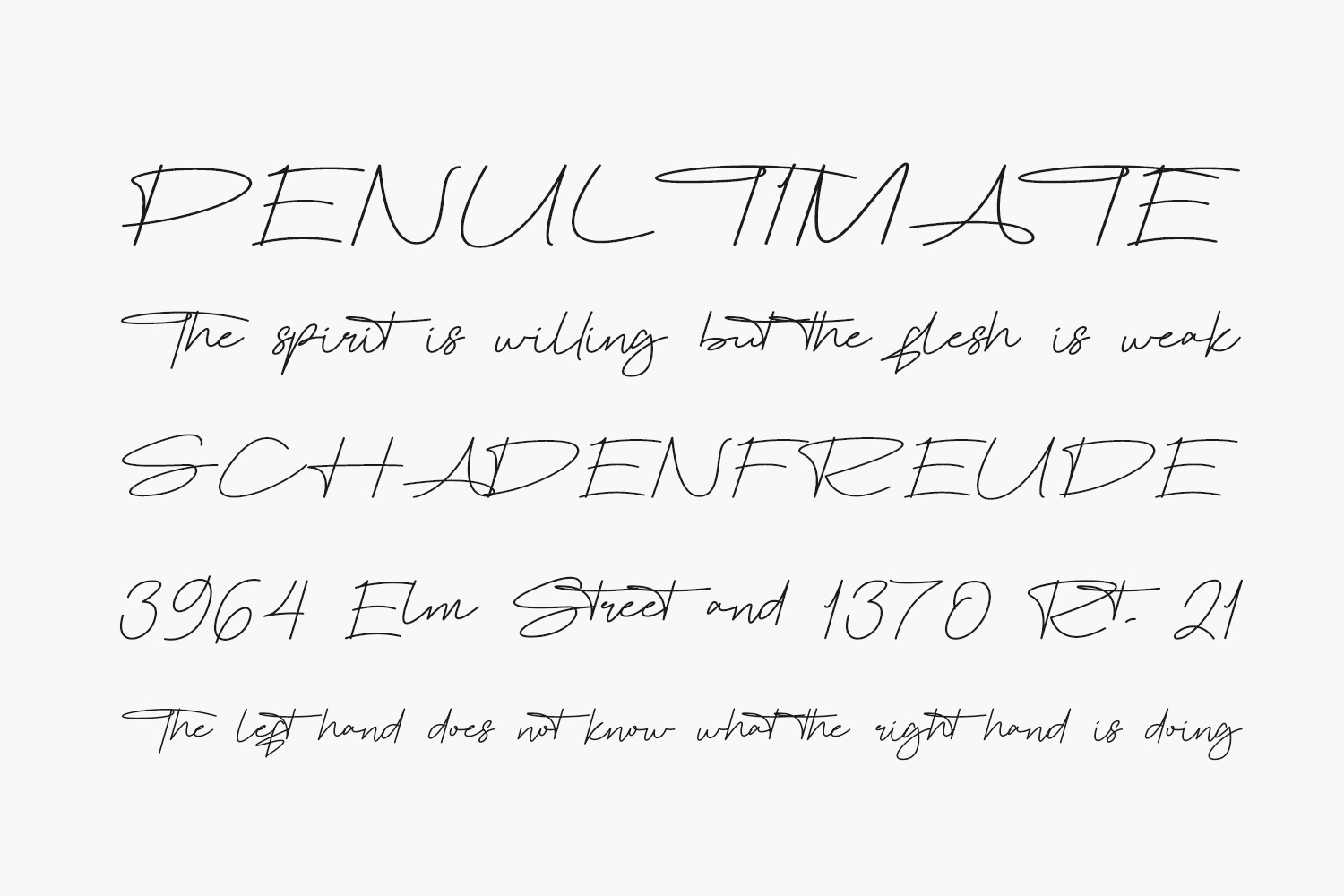
Introducing Rometano Free Font, a signature font characterized by its organic, natural lines. This font exudes an air of sophistication, seriousness, and elegance. Elevate your projects, whether it’s shirt designs, social media posts, books, invitation cards, events, crafts, or more, with the refined charm of this splendid typeface. Rometano Free Font is free for personal use only. Please purchase the full version for commercial use.